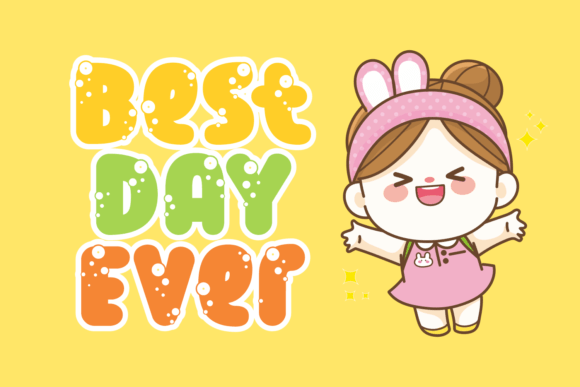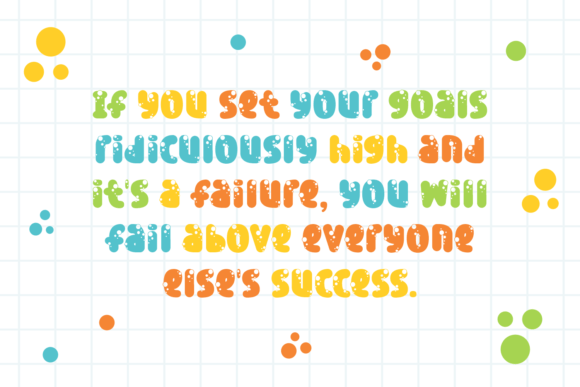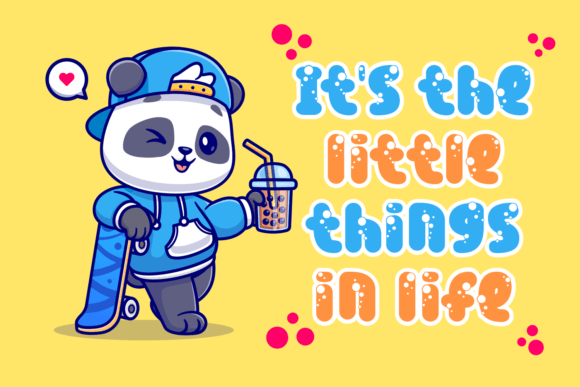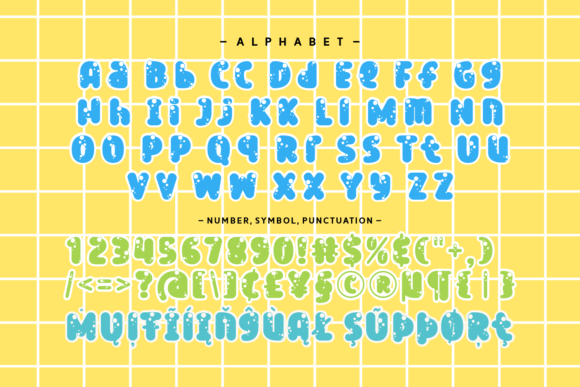
When Words Get to be Too Serious
As designers, we’ve all been there – staring at a blank page, trying to come up with the perfect way to convey a message that’s both fun and engaging. It’s a delicate balance to strike, but one that’s essential for capturing our audience’s attention and holding it.
Enter the Buble Best Font, a playful and attention-grabbing display font that’s perfect for adding a lighthearted touch to your projects. With its bubbly and bulky design, this font is sure to bring a smile to your viewer’s face and leave a lasting impression.
For designers, the Buble Best Font is a valuable addition to any toolkit, offering a unique and versatile way to add personality to your work. Whether you’re creating a brand identity, designing a marketing campaign, or simply looking to add some fun to your social media posts, this font is sure to deliver.
- Unique Characteristics: Features a unique bubble-like design with rounded edges and a soft, playful feel
Bubble Best Font Review
Overall, I think the Bubble Best Font is a solid choice for digital designs. Here are some of its standout features ✨:
- Unique and playful style: The font’s bubbly aesthetic is sure to add a touch of whimsy to any project.
- High legibility: Despite its playful appearance, the font remains highly legible even at smaller font sizes.
- Good font pairing options: The font works well with a variety of other fonts, making it easy to create visually appealing combinations.
However, there are some limitations to consider ⚠️:
- Limited font weights: The font only comes in a few weights, which may limit its versatility in certain design situations.
- No language support: The font only supports a limited range of languages, which may make it less suitable for projects that require multilingual support.
- May not be ideal for formal designs: The font’s playful style may not be the best choice for formal or professional designs, where a more conservative aesthetic is preferred.
Overall, I think the Bubble Best Font is a fun and versatile font that can add a lot of personality to a design project. While it may have some limitations, it’s a great choice for designers who want to add a touch of whimsy to their work.
Tips for Getting the Most Out of Bubble Best Font
Use Bubble Best Font for playful and creative designs, such as social media graphics, flyers, and posters.
Combine Bubble Best Font with other fonts to create a unique and eye-catching design.
Bubble Best Font is ideal for:
– Flyers and posters
– Infographics and charts